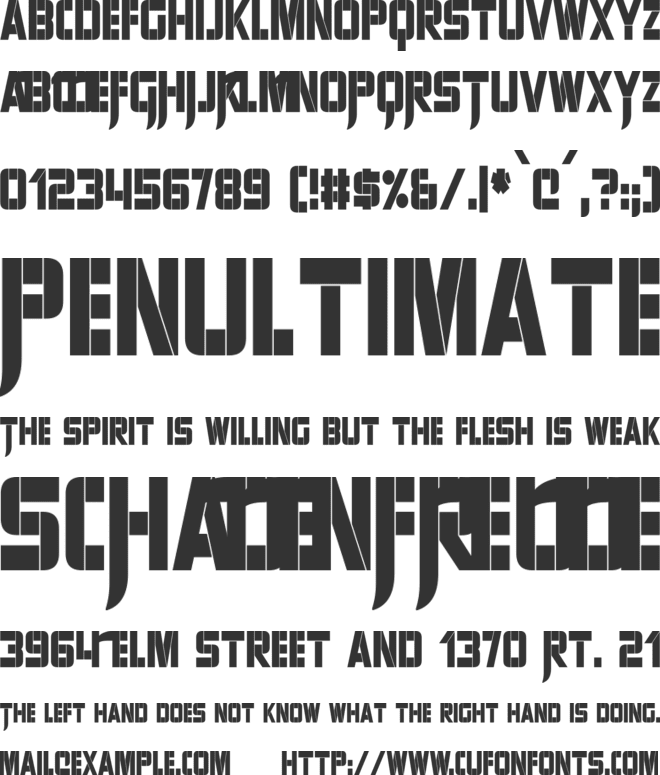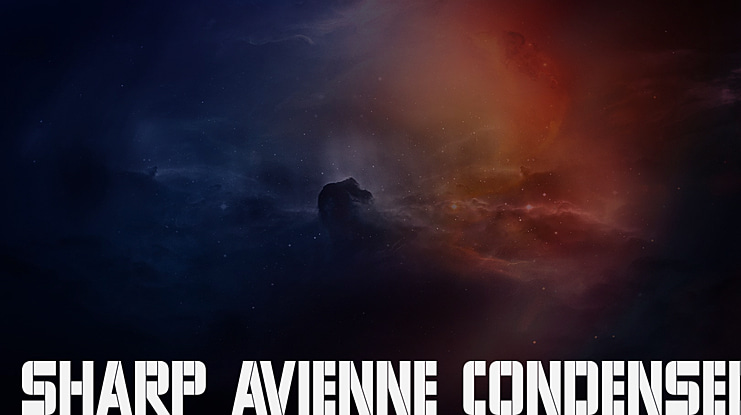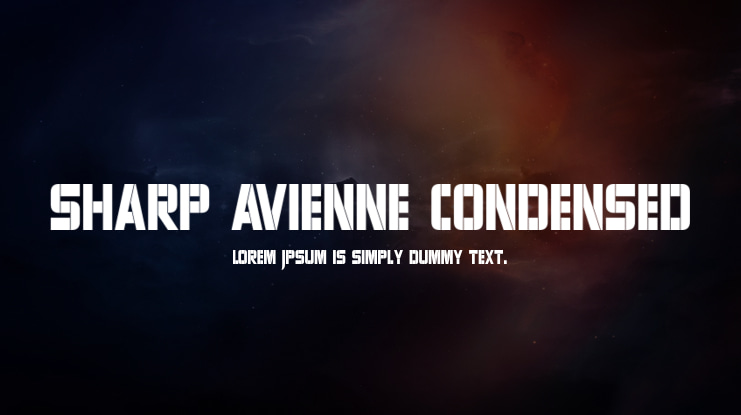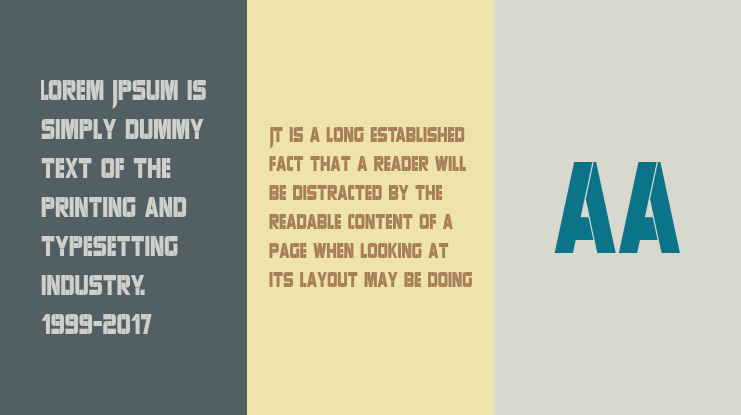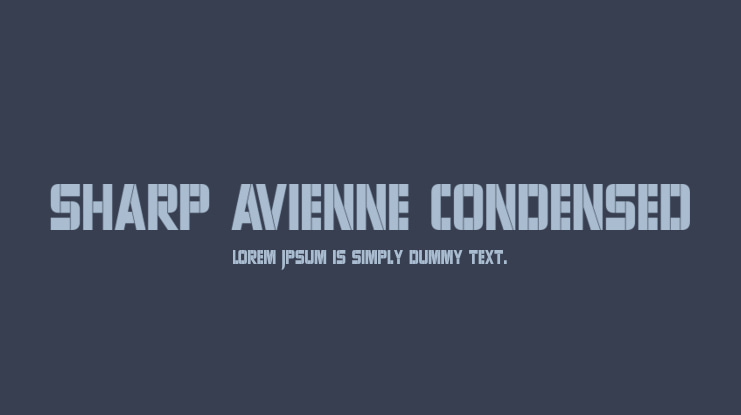
Sharp Avienne Condensed Font Family
Neale Davidson
Sharp Avienne is a thick, quasi-stencil typeface with 'claw-like' flourishes on many of the capital letters. This face is based on the title logo of the "Birds of Prey" comic series from DC comics. It includes full alphabet, extended punctuation, Euro. Includes regular, italic, condensed, and condensed italic versions.